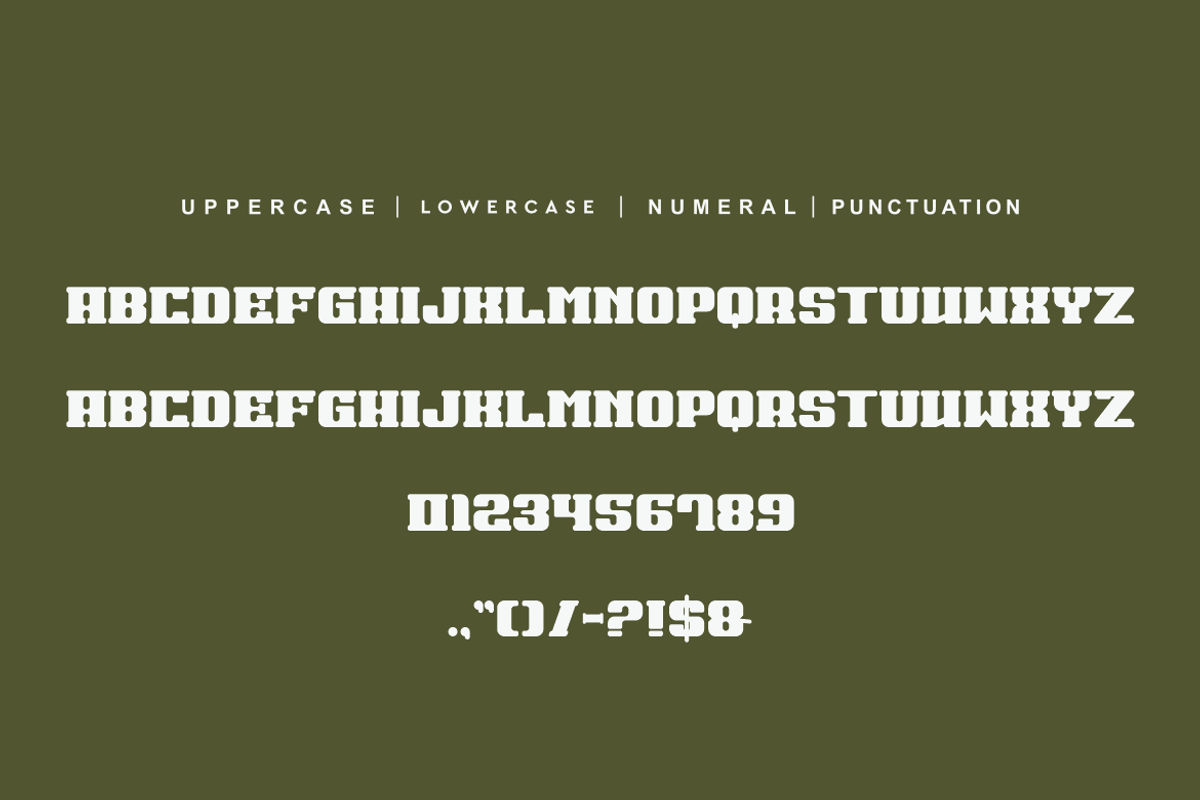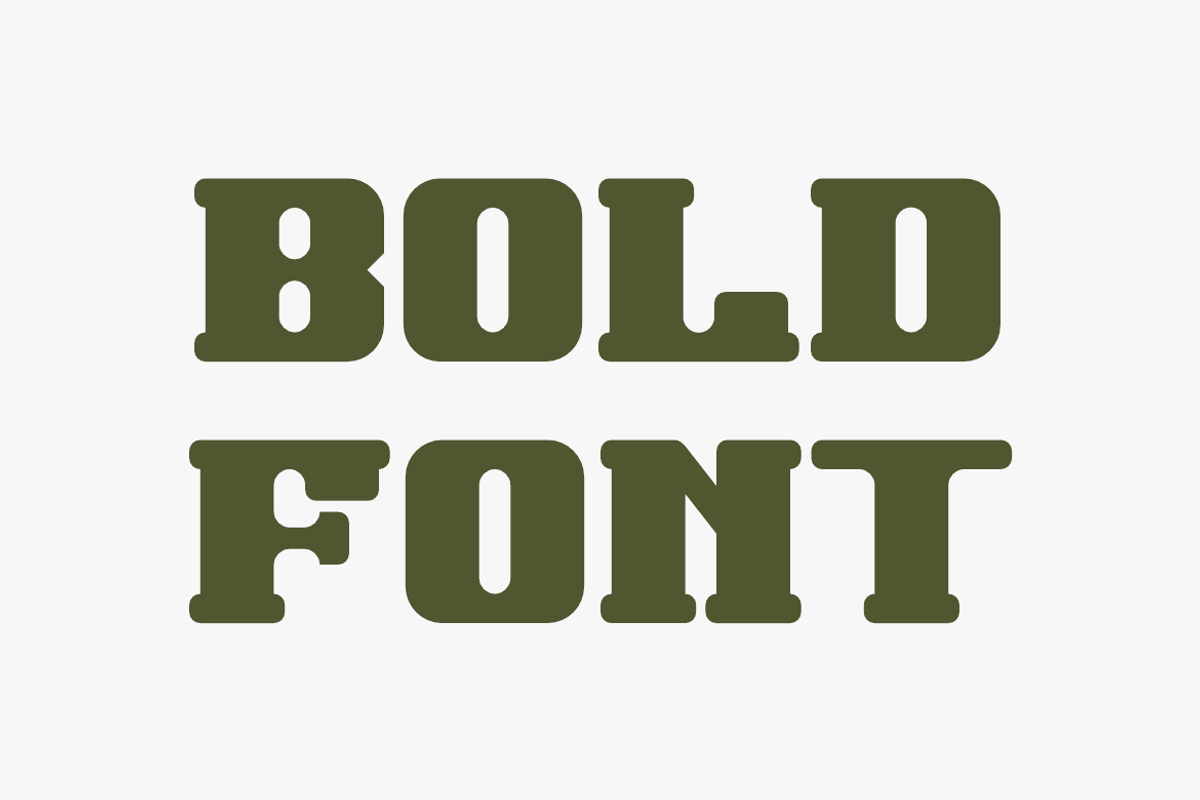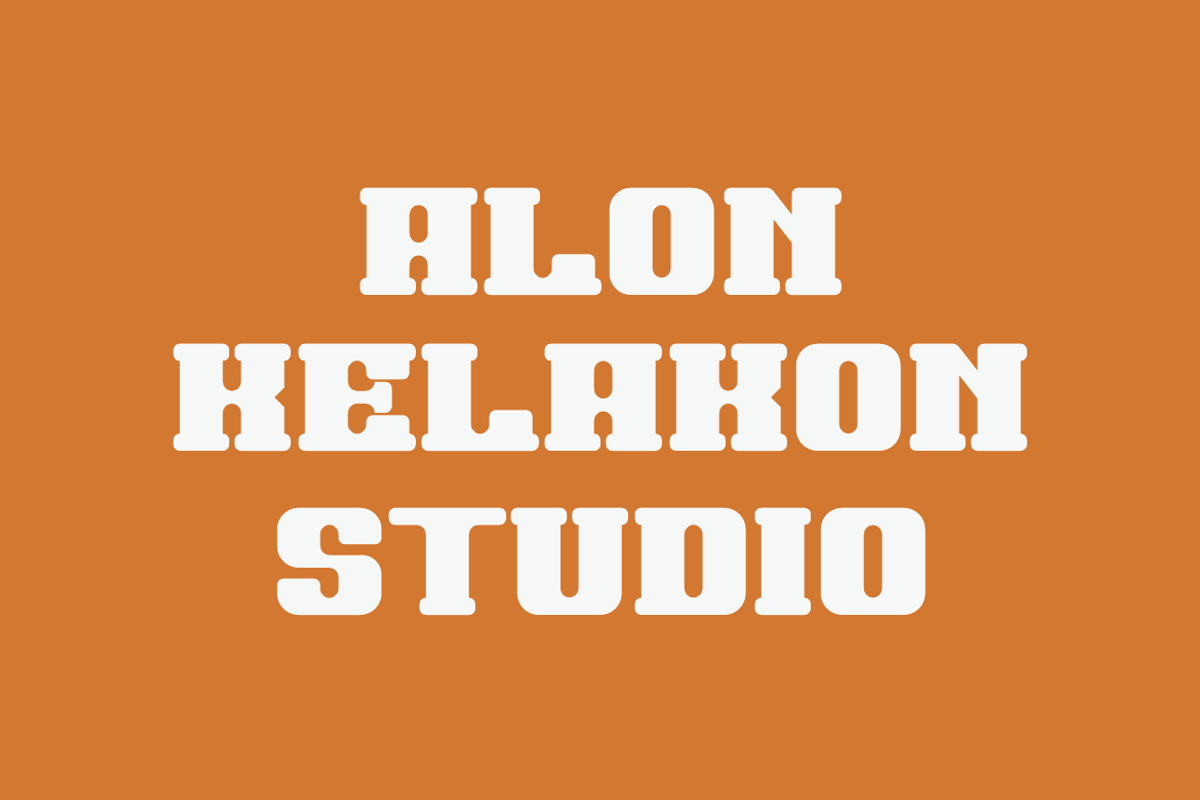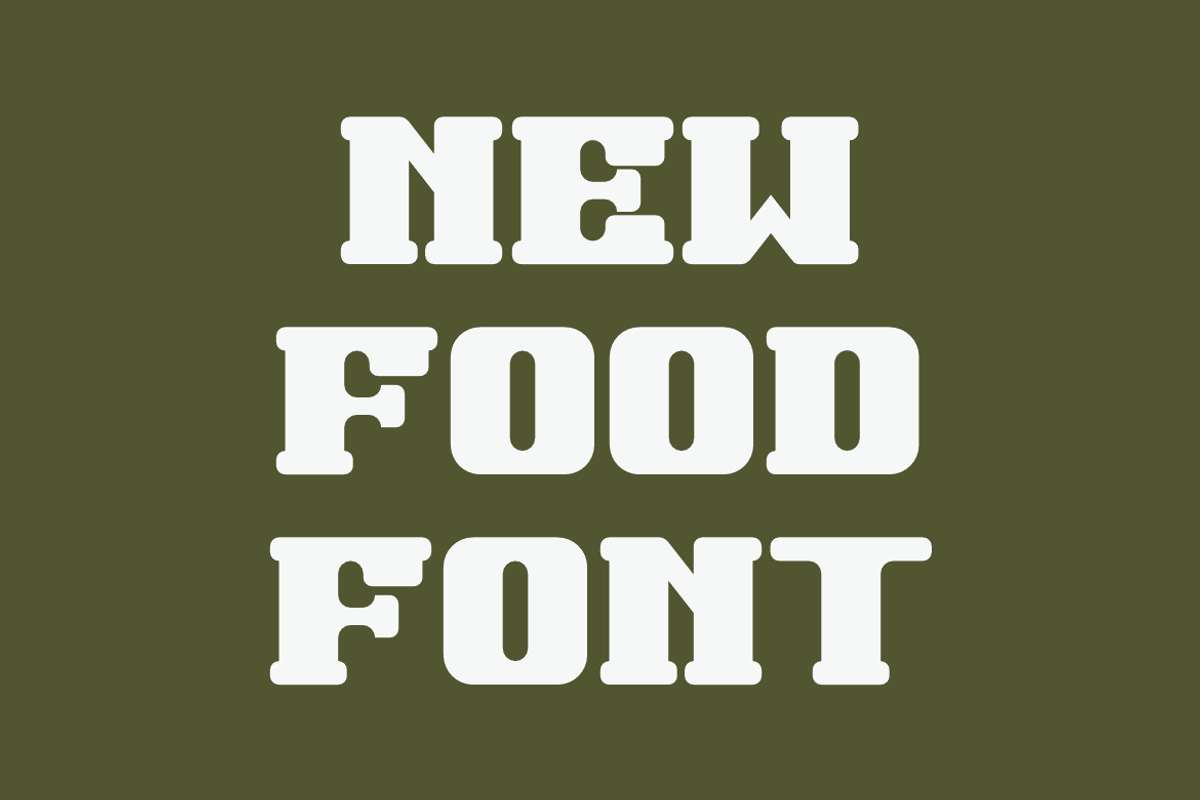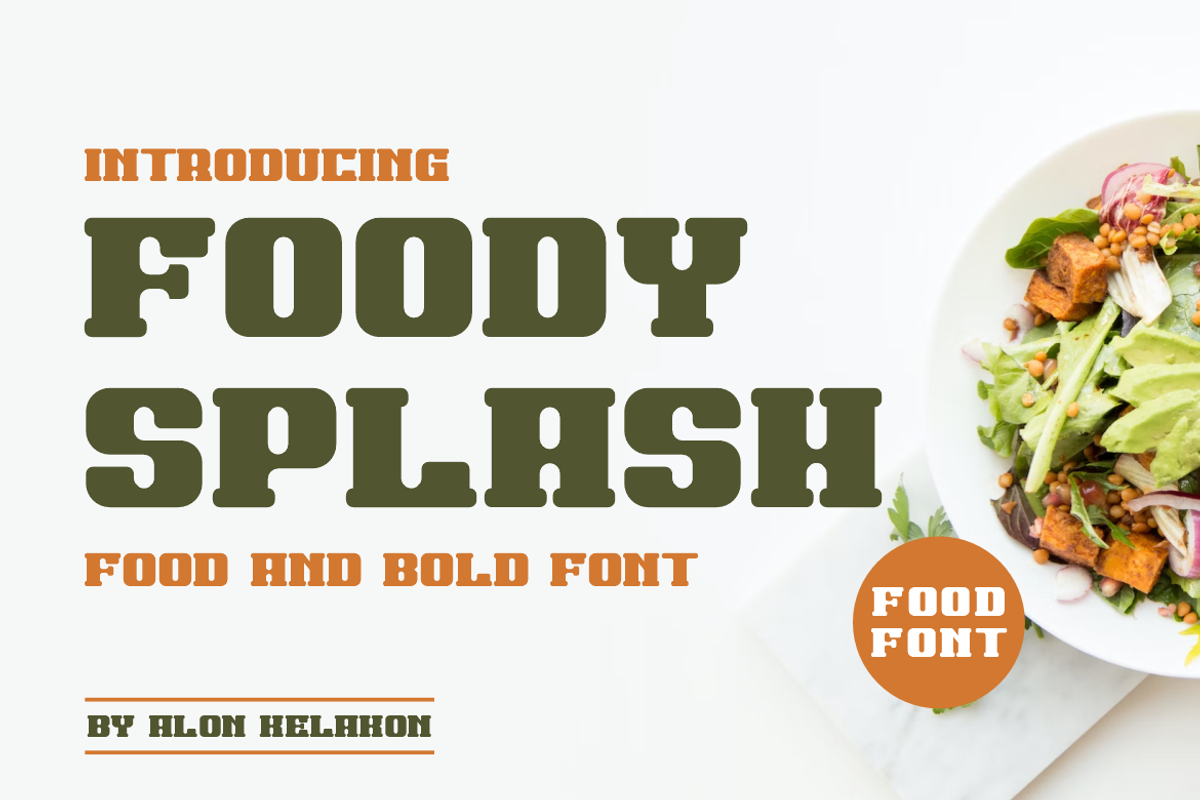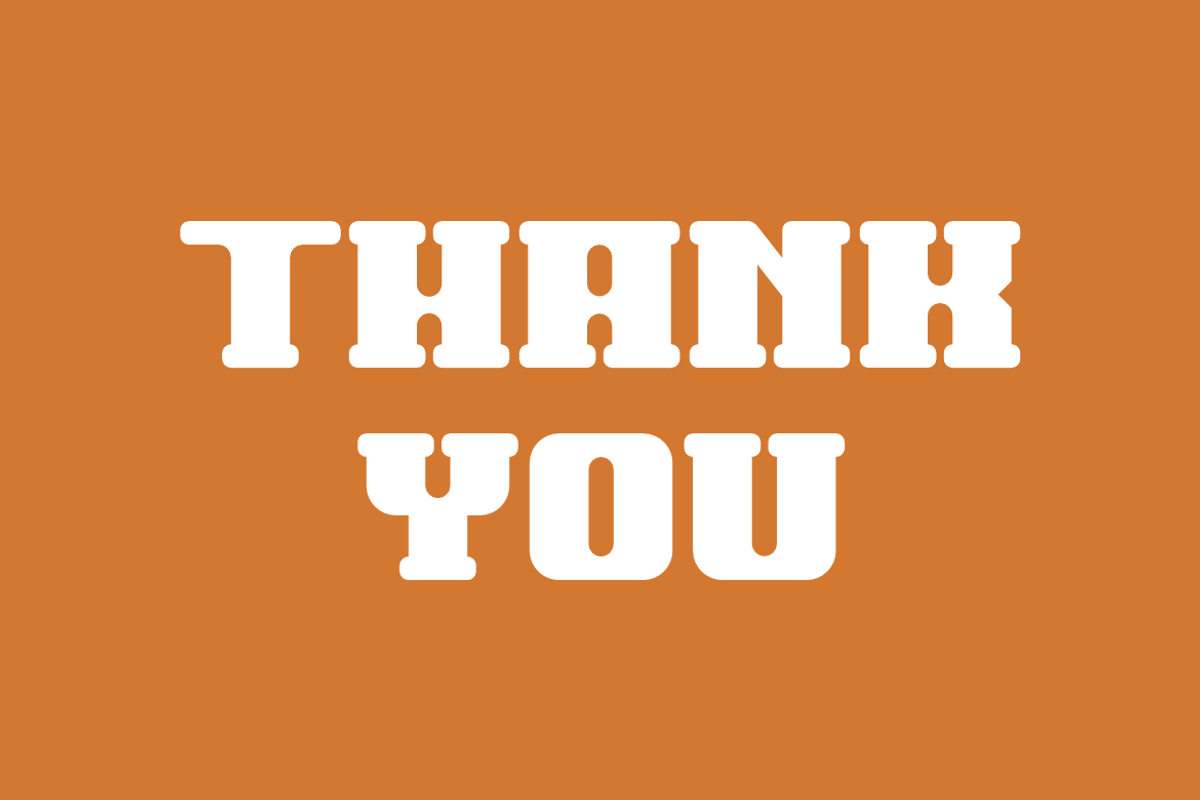
Foody Splash
Foody Splash Font is unique . Ready to use for your design like labeling, movie sceen, poster, movie title, gigs, album covers, logos, and much more.